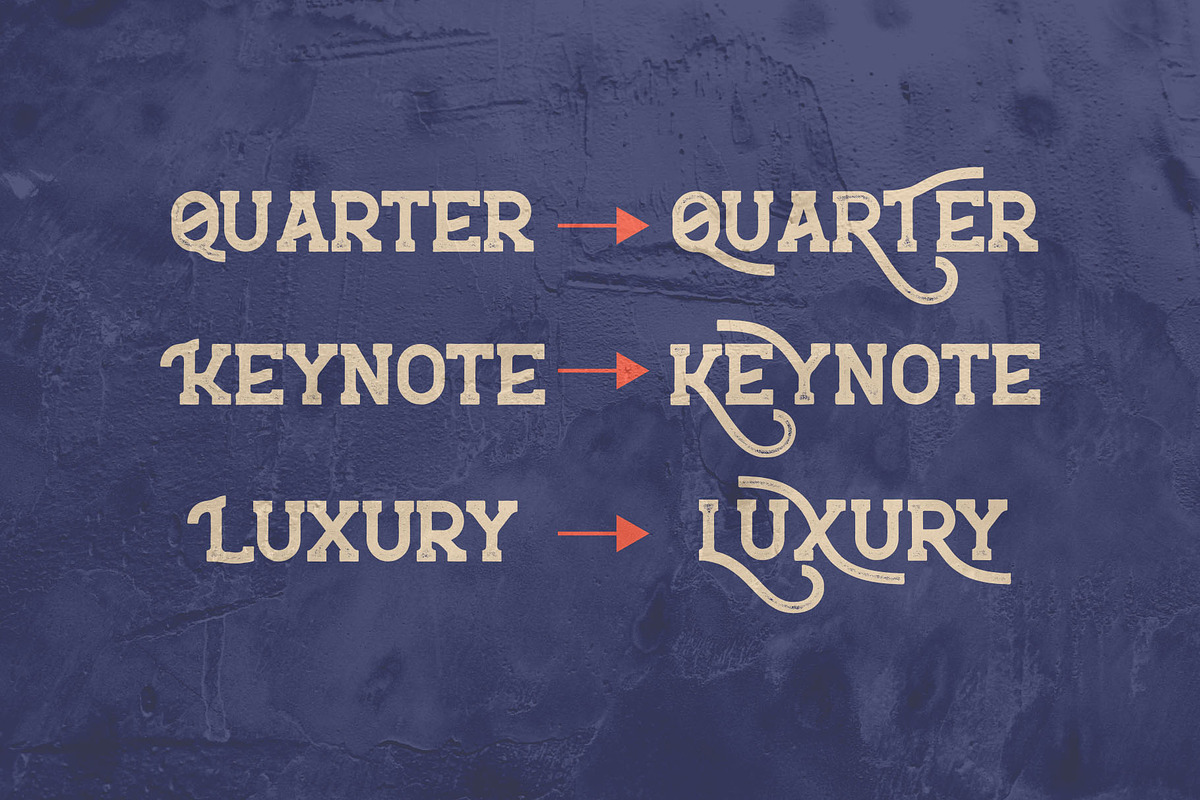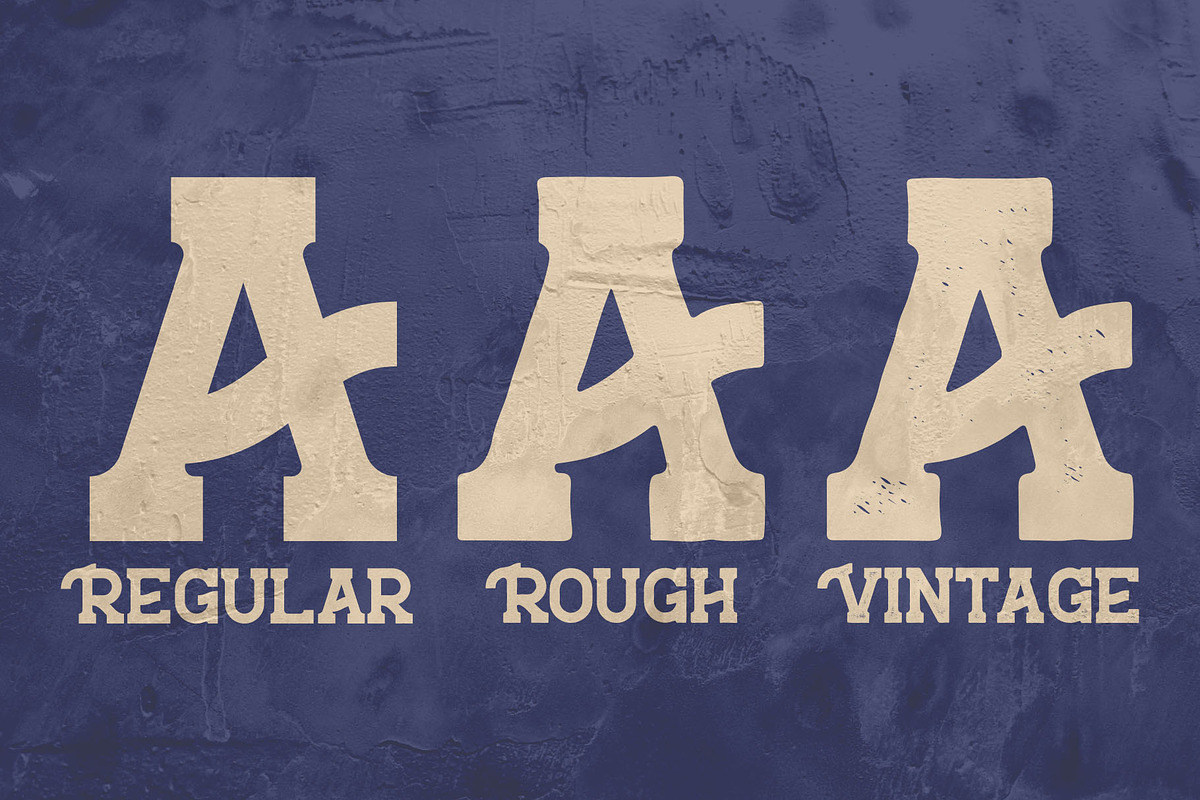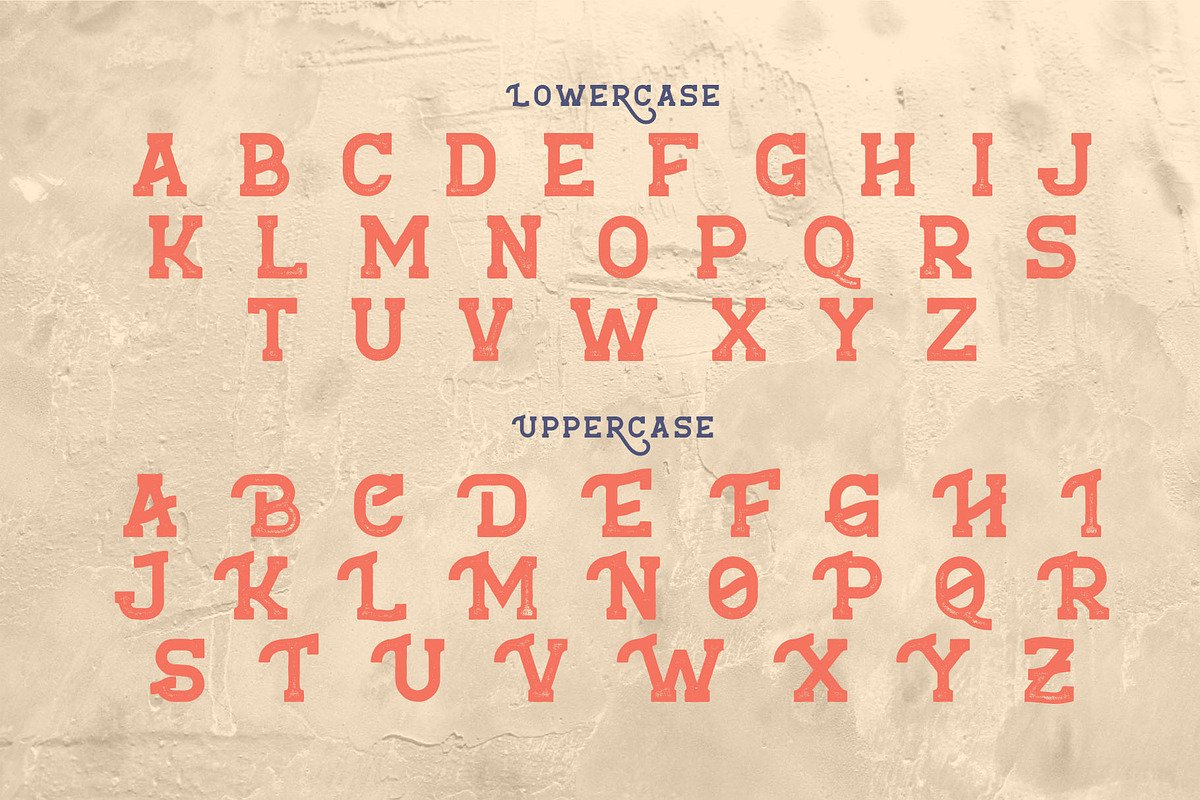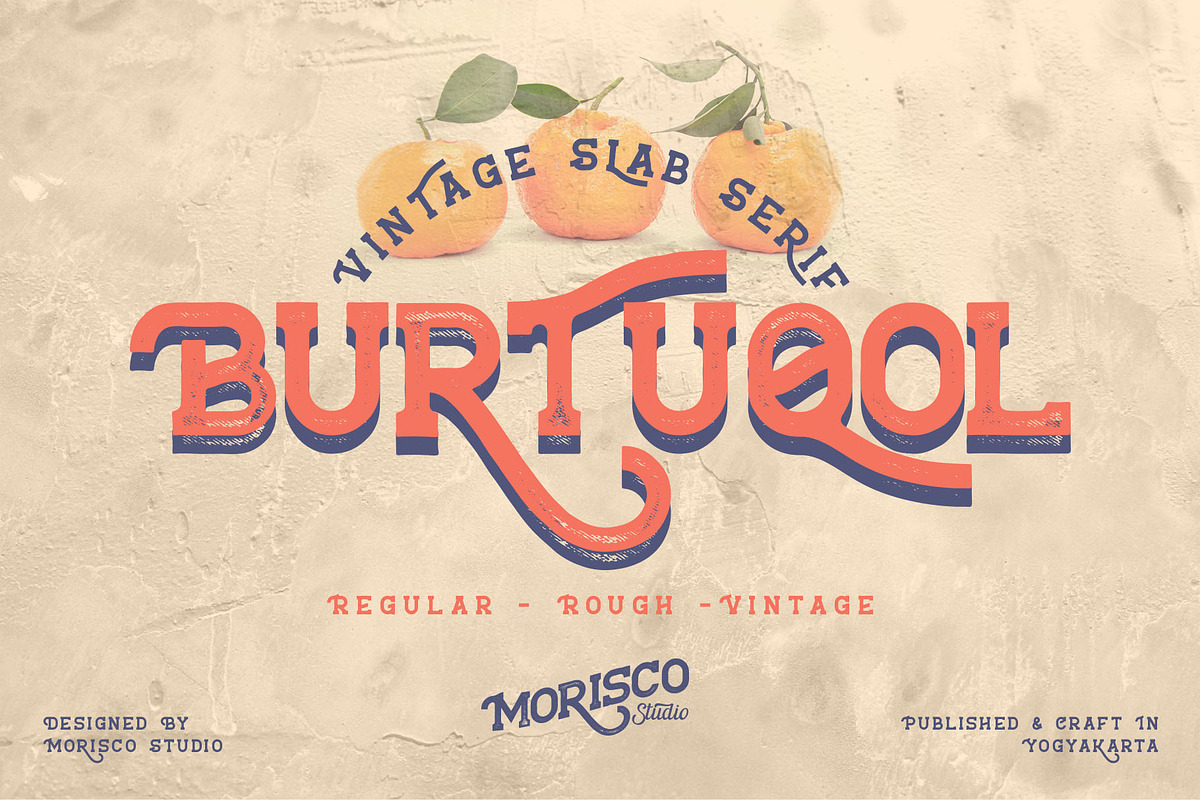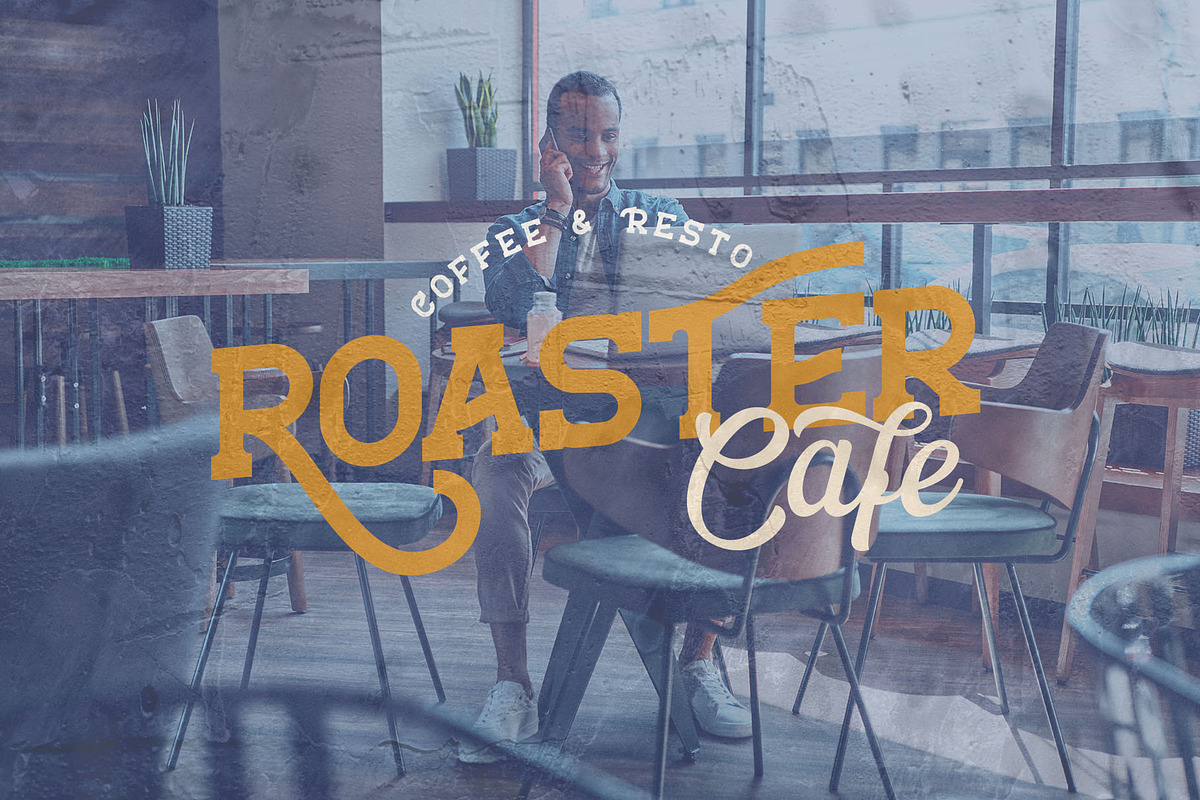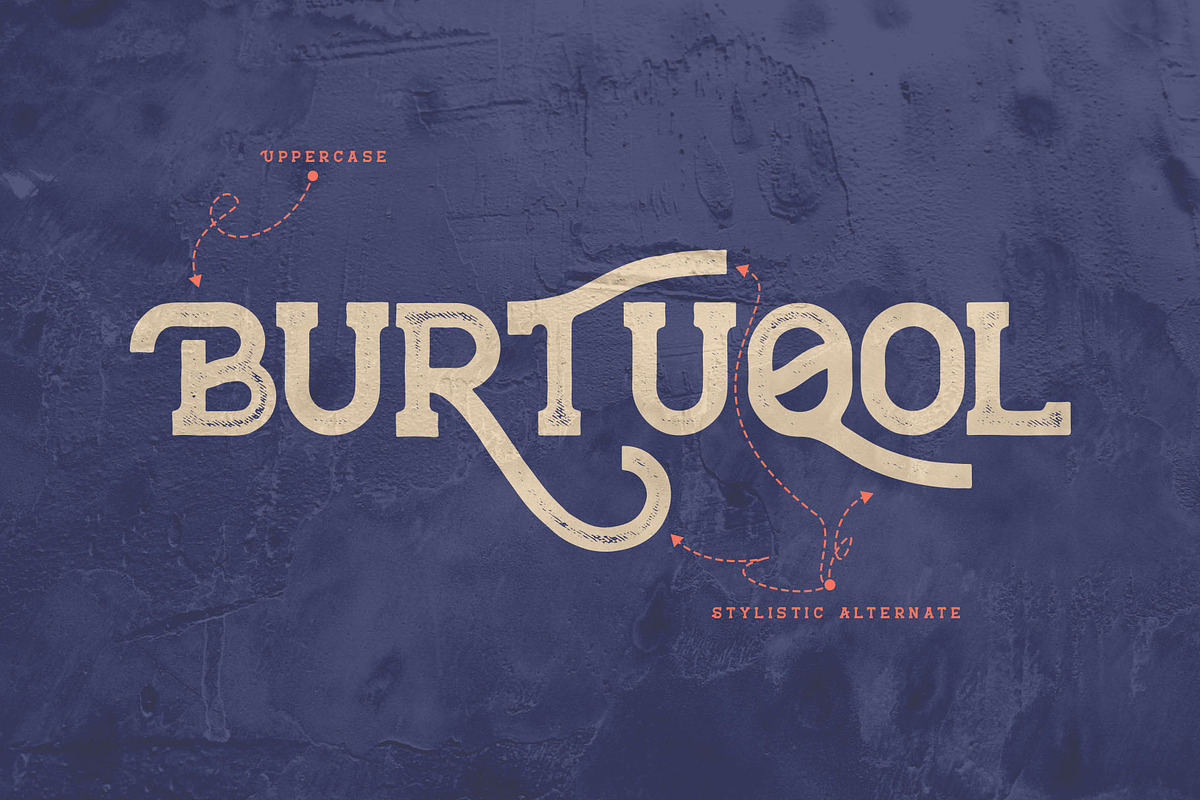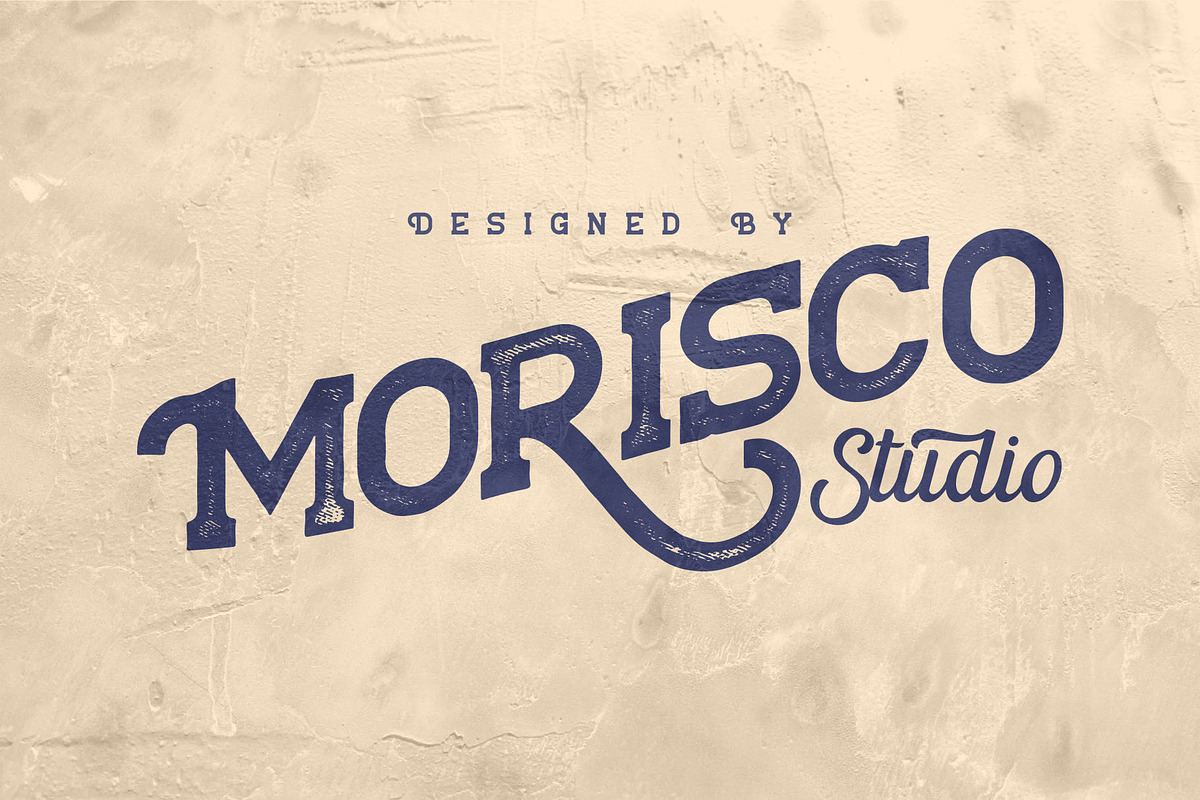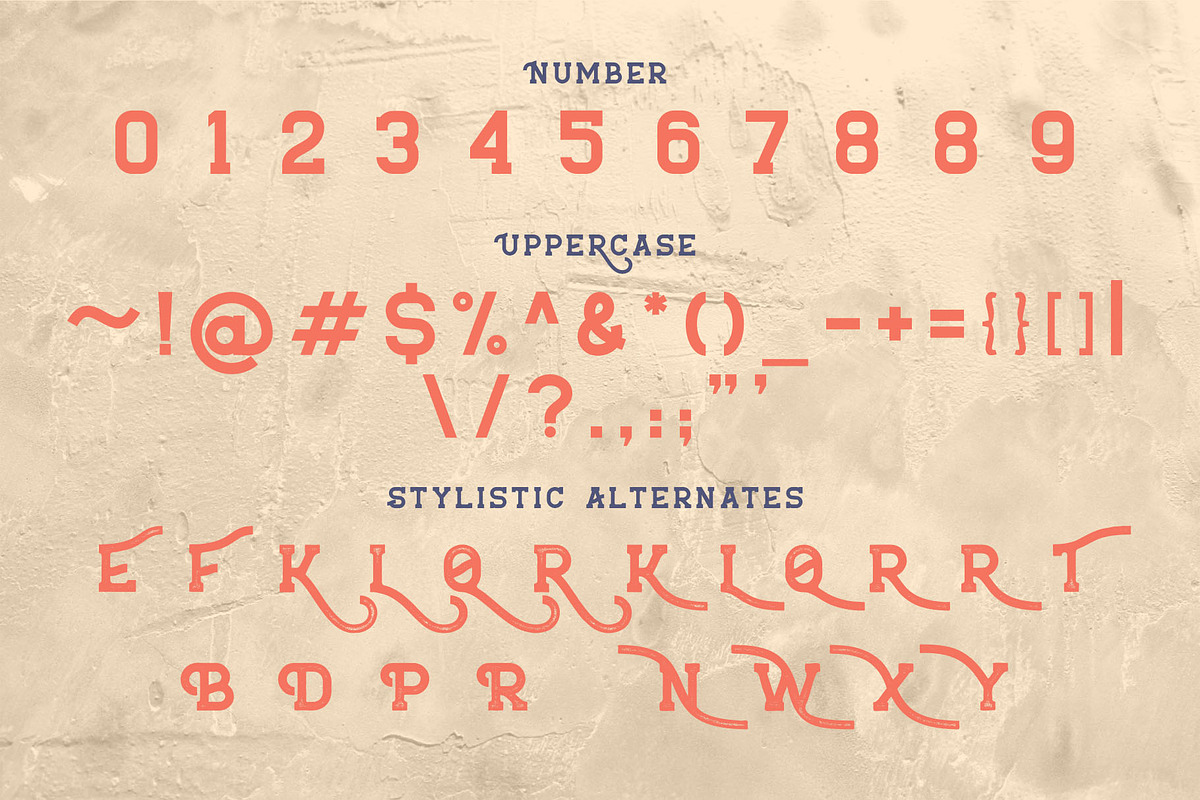
Burtuqol - Vintage Slab Serif
Burtuqol is handmade Vintage Slab Serif font perfect for branding, logo, t-shirt (apparel), headline, packaging, greeting card, wedding invitation and more.